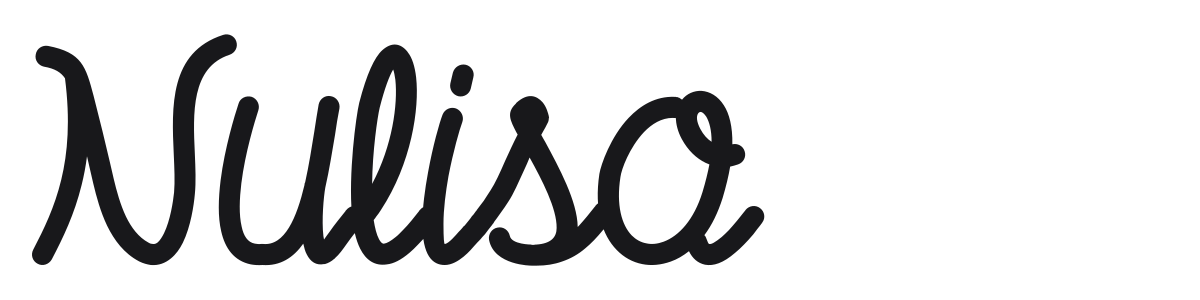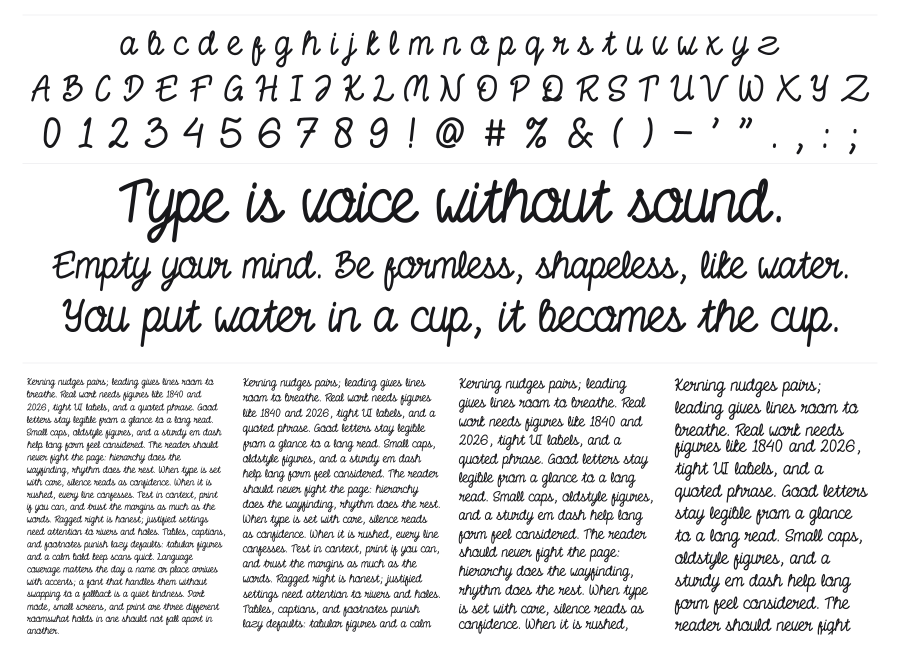
Nuliso
Nuliso is a casual connected script with smooth, looping strokes and a relaxed hand-lettered feel. The near-monoweight construction and rounded forms keep it approachable and readable at display sizes without feeling stiff. It suits branding projects that want warmth and personality without formality.